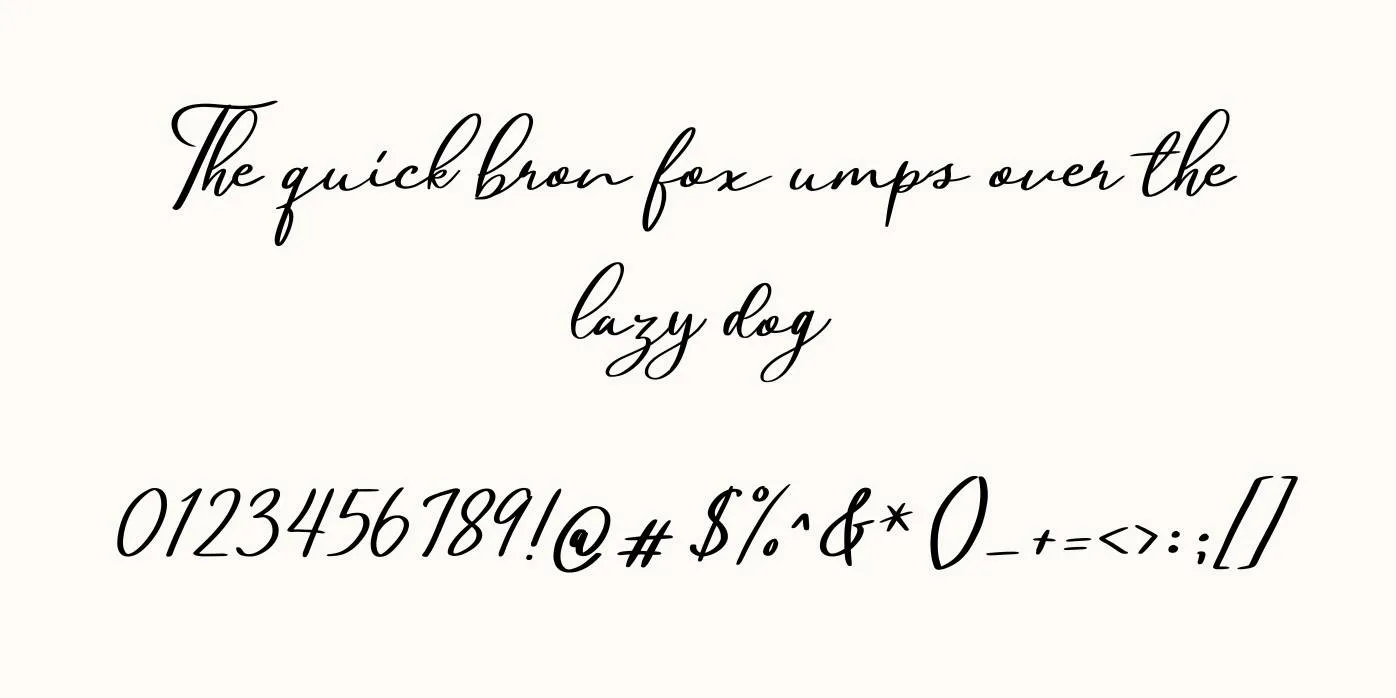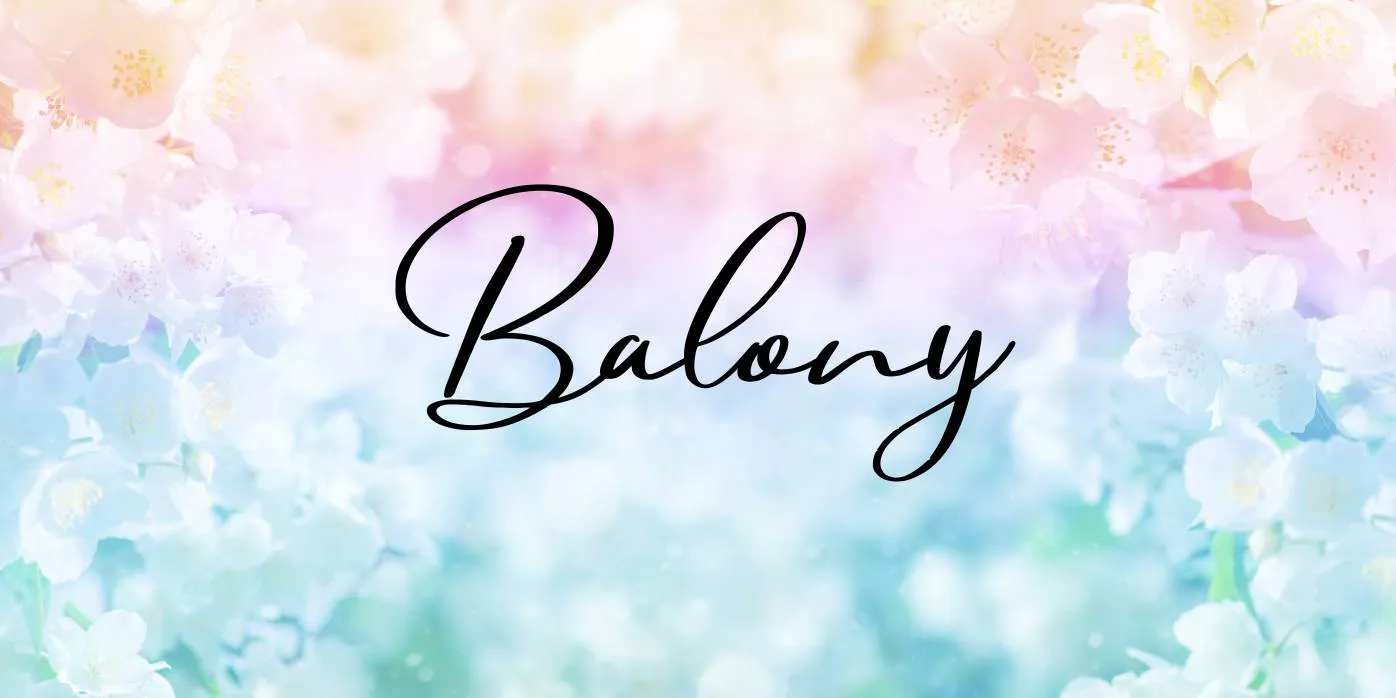
Balony Font
Balony Font is a most attractive script typeface design that has very charming glyphs and characters. It was crafted by a very top-notch studio Creatype Studio. This font is free for use only in your private projects. This typeface has a wide variety of styles and glyphs, making it a versatile choice for designers.
The glyph of this font consists of a circular shape and characters of this font was interconnected to each other which gives a natural feel to your design. If you’re looking for a font that is both unique and stylish, then look no further than this font. This typeface style was inspired by some other script and calligraphy typefaces and it is much closer to the lucida handwriting font¬†you can check out. Usages Because of its unique features and styles, its value is enhanced by all designers.
A great number of designers used this awesome typeface for many projects such as product designs, display purposes, game development, and many more. It will surely help you to create outstanding designs that will grab the attention of your audience. So don’t waste your time and start using it in your ongoing projects. If you are a graphic designer then you can easily use this typeface for making vintage designs.
However, its modern appeal lies in its versatility and readability. Can I use Balony in a logo? Because of its unique features and styles, its value is enhanced by all designers. You can easily utilize it to make logos.
Is Balony a Google font? No, This is not a Google font. Google fonts are free to use and are available through the Google Fonts website. What is the Balony font used for?
This is an awesome typeface that was good for many projects such as product designs, display purposes, game development, and many more.